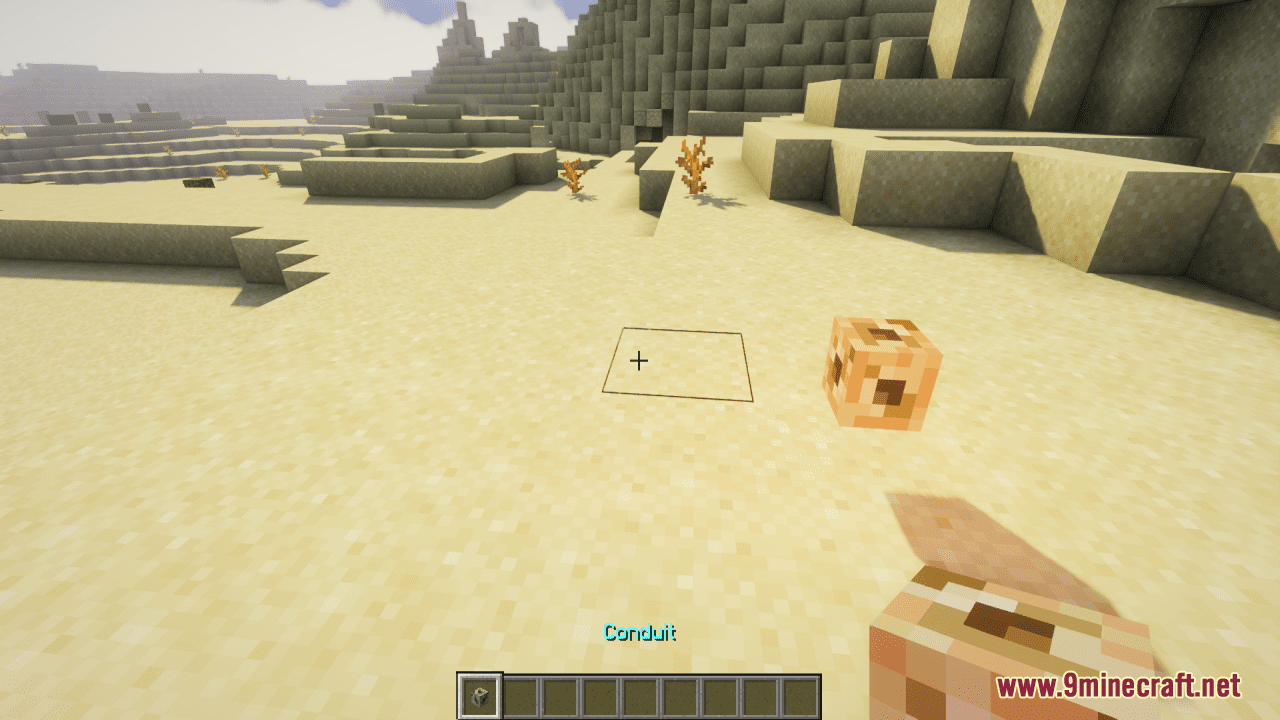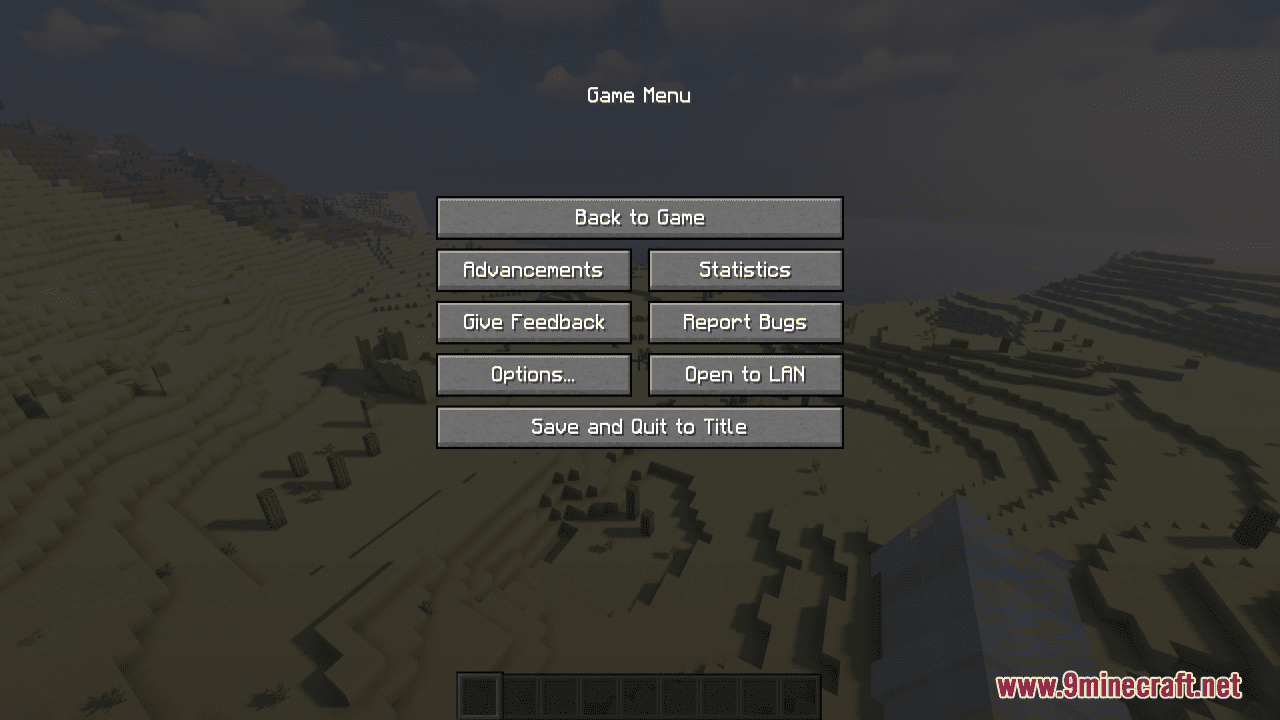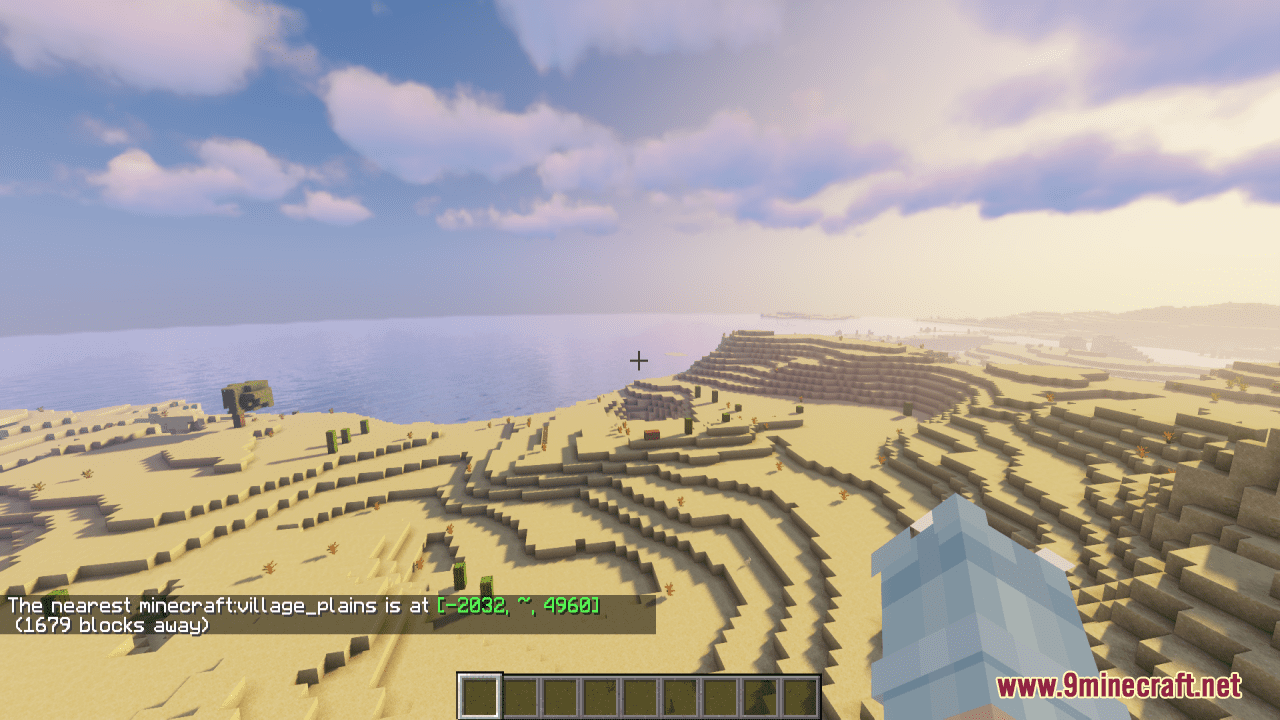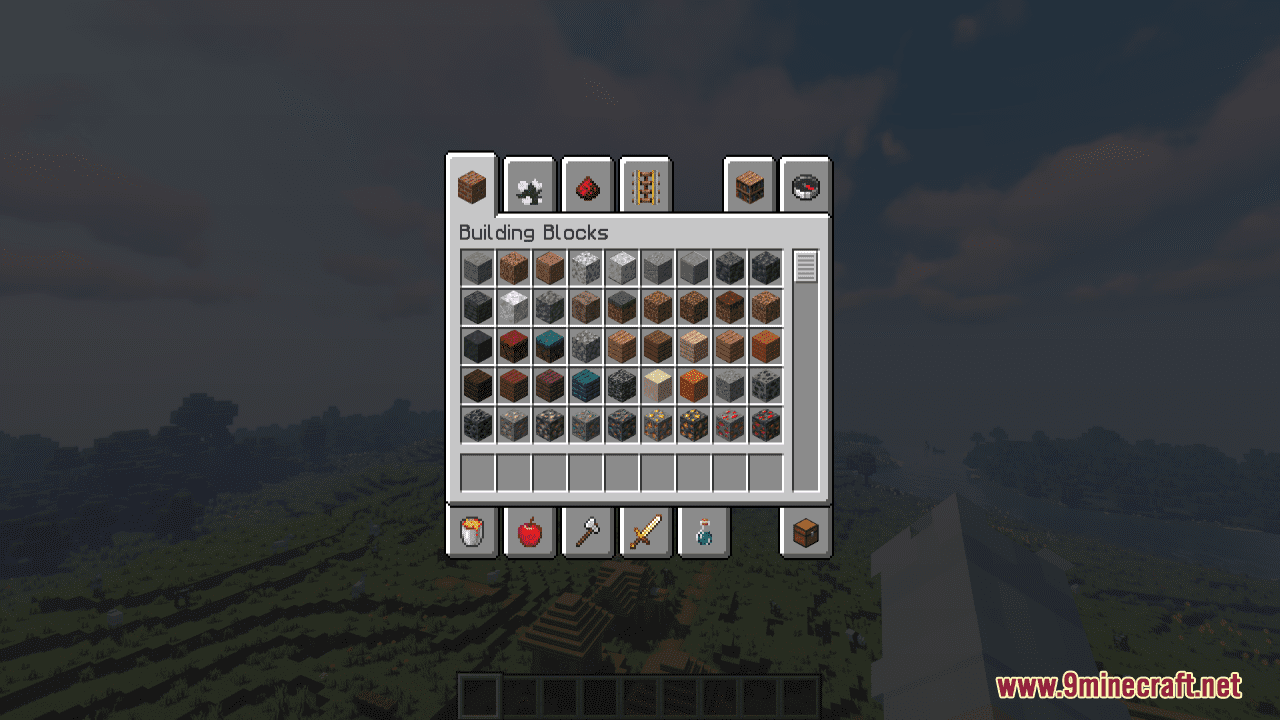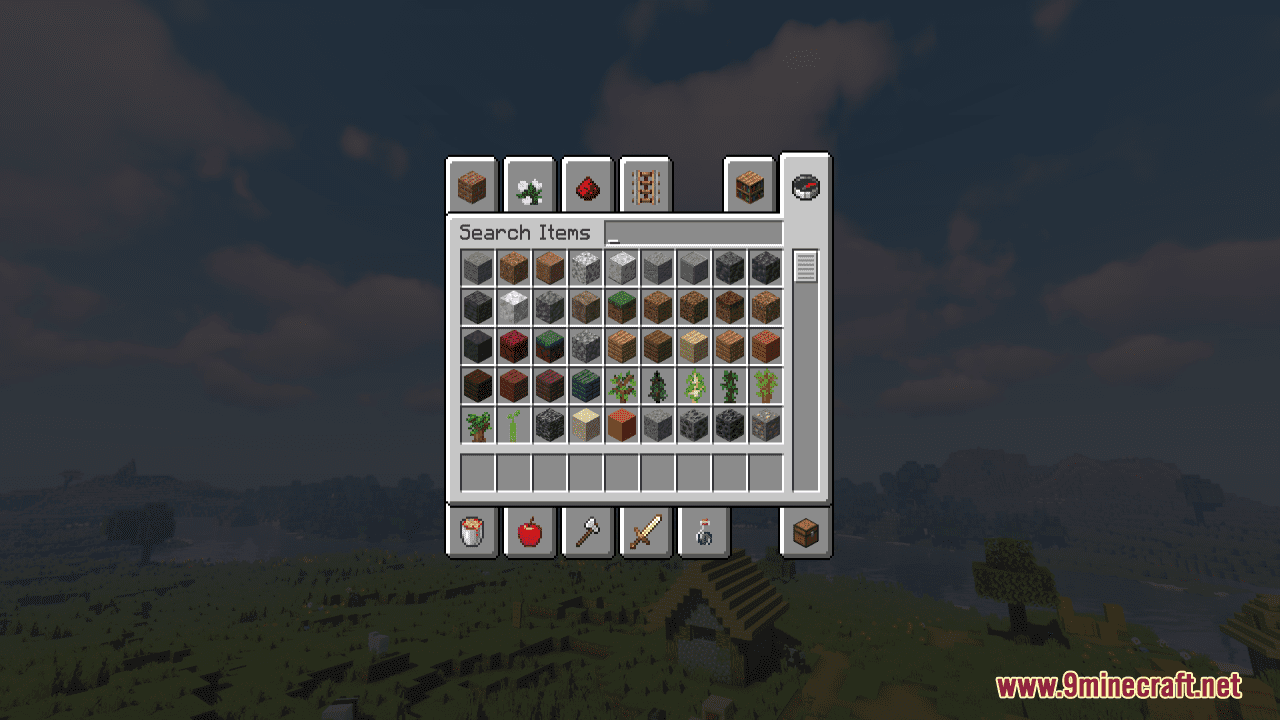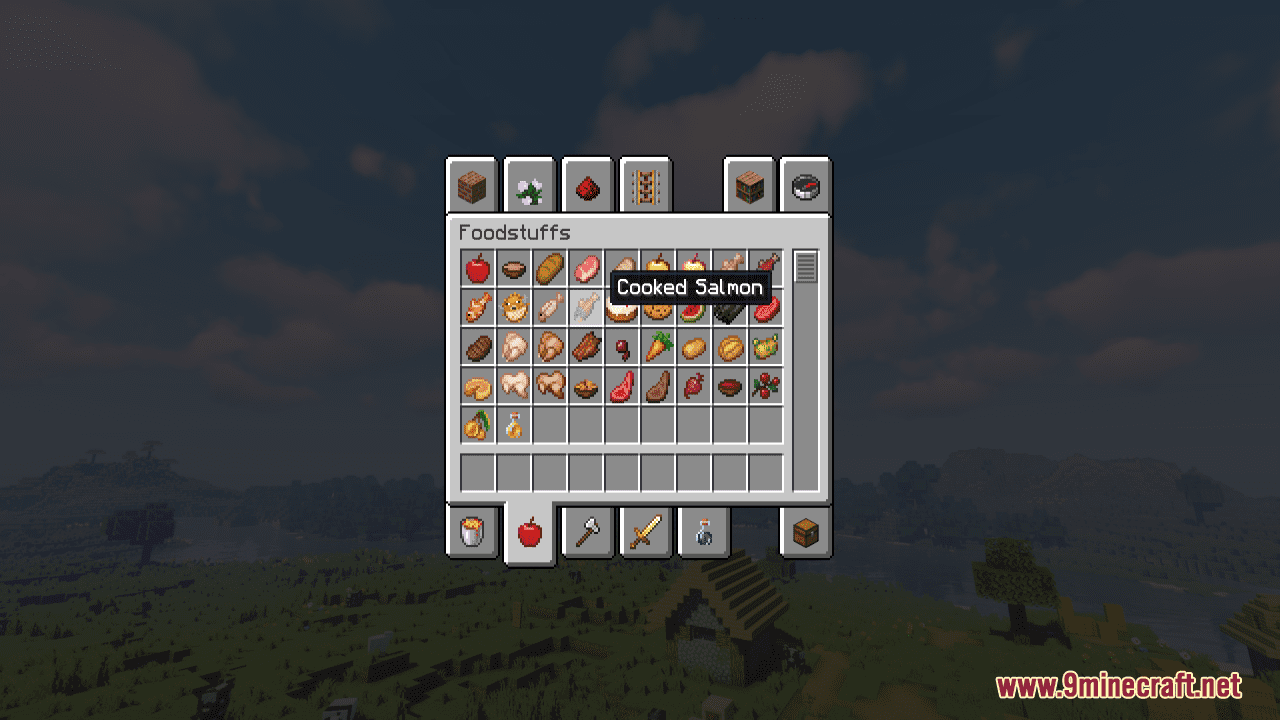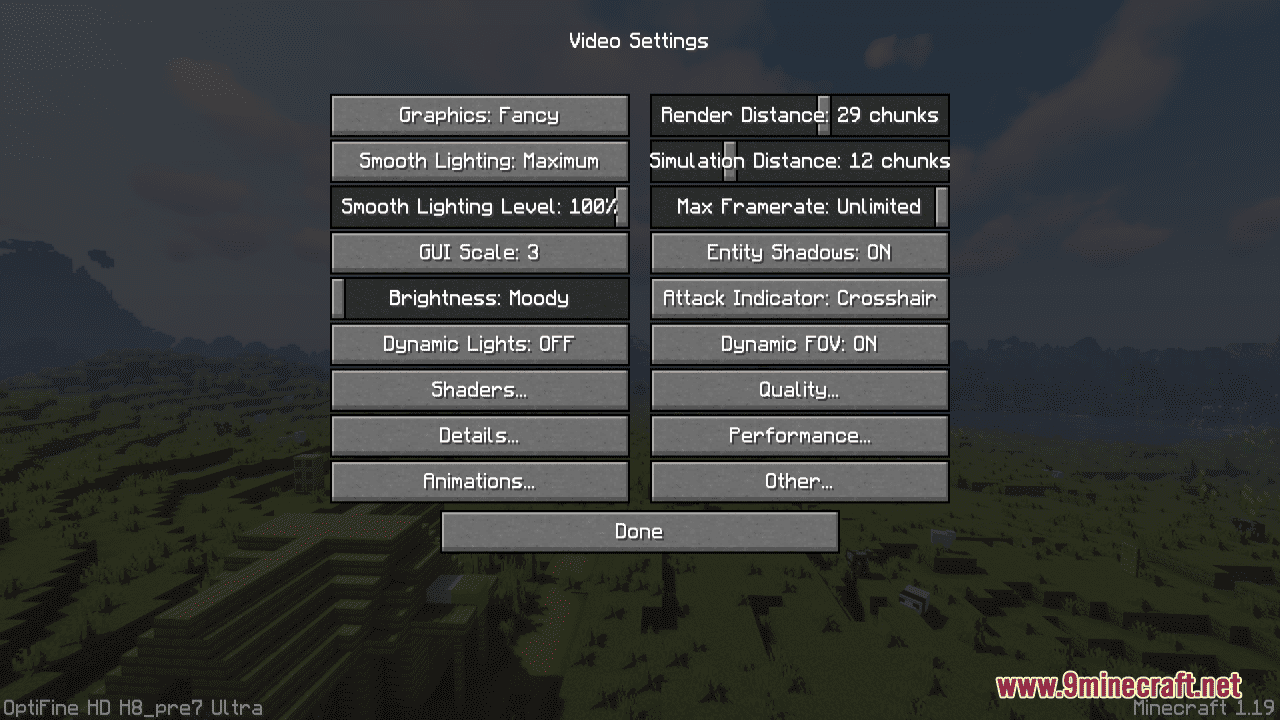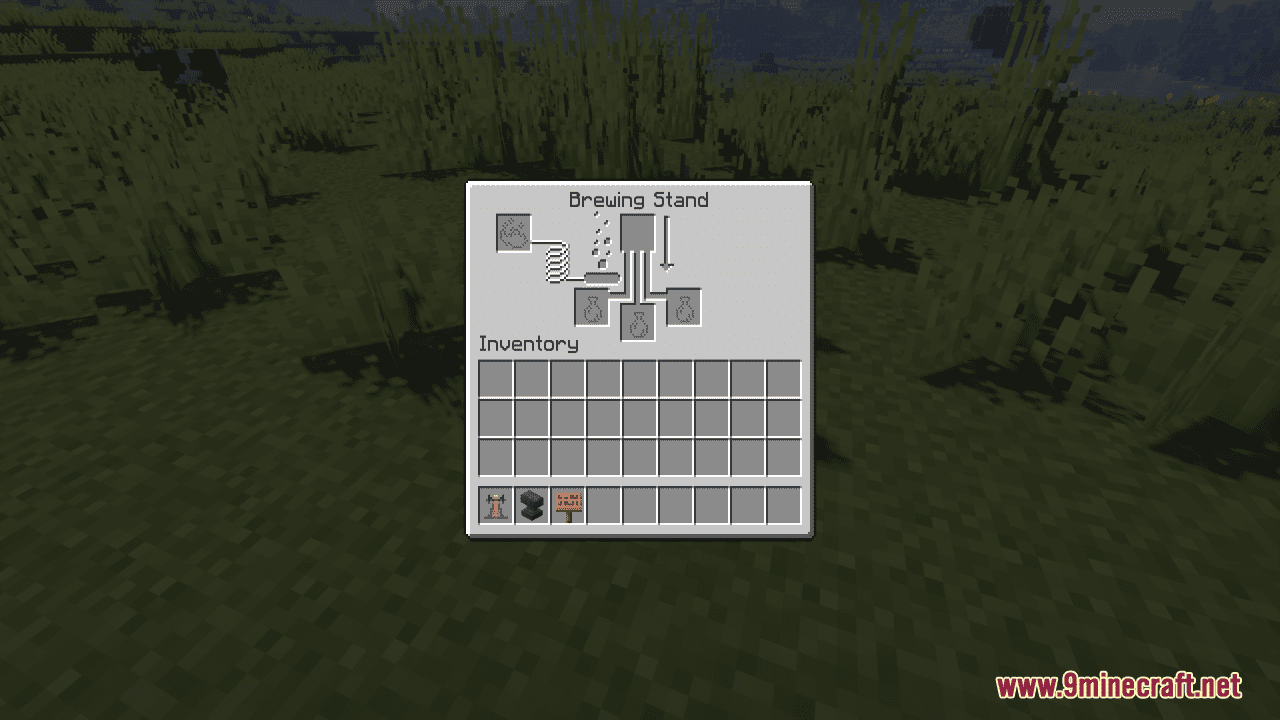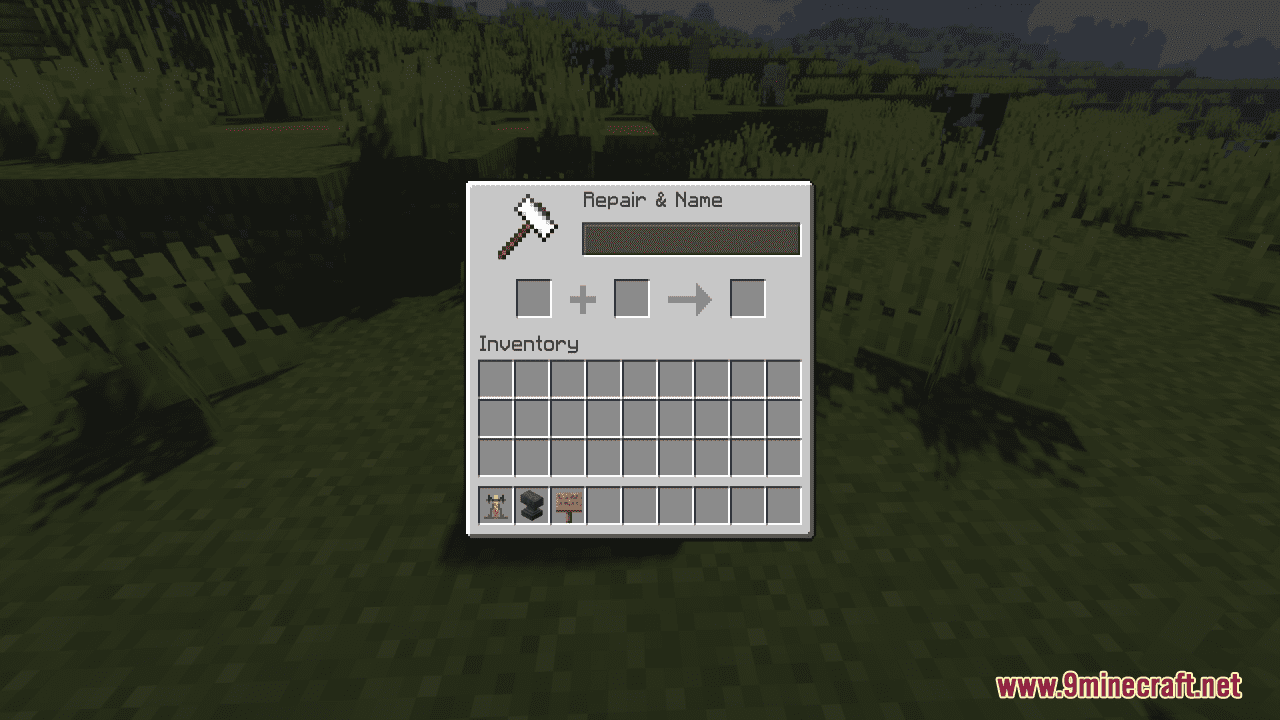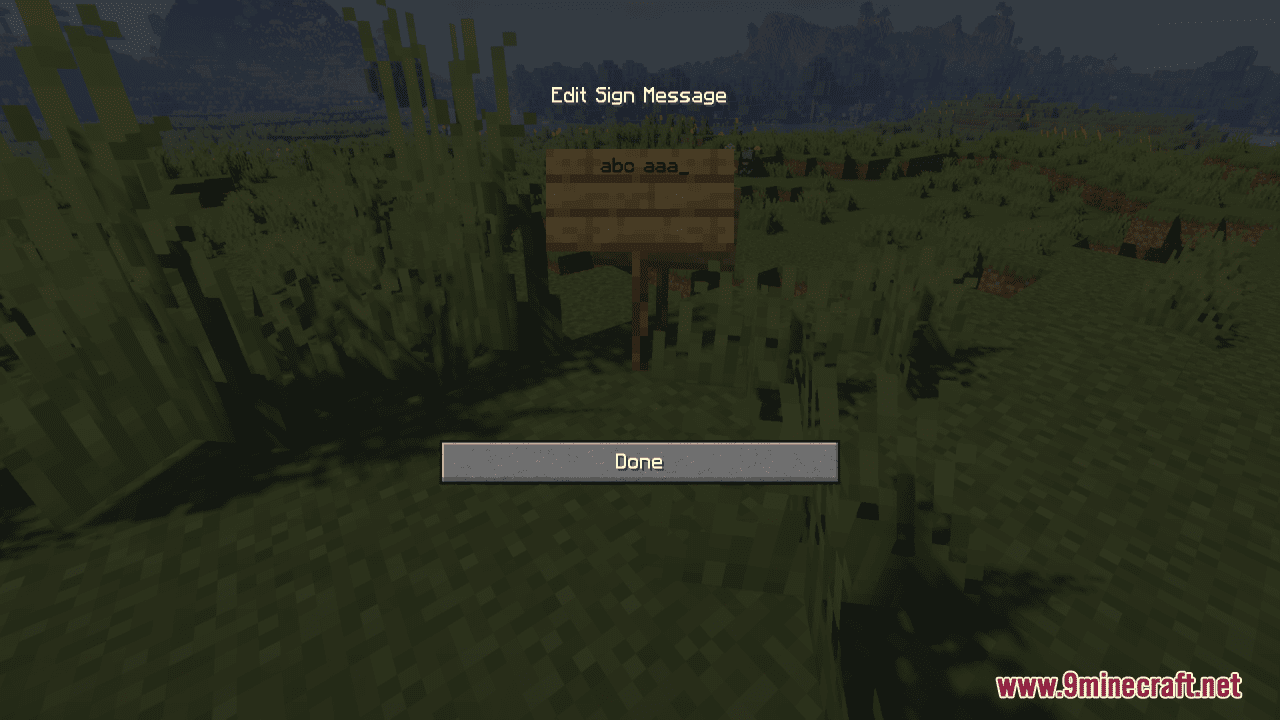
Slightly Improved Font Resource Pack (26.2, 1.20.1) – Texture Pack
Slightly Improved Font Resource Pack is a slight and clean pack which aims to add a slightly improved version of vanilla Minecraft font – a redraw of original font at 32x. You can see what it looks like down below! Noted that it supports all plain ascii characters and symbols. In general, it is a great and slight option for every player to renew their game without much effort.